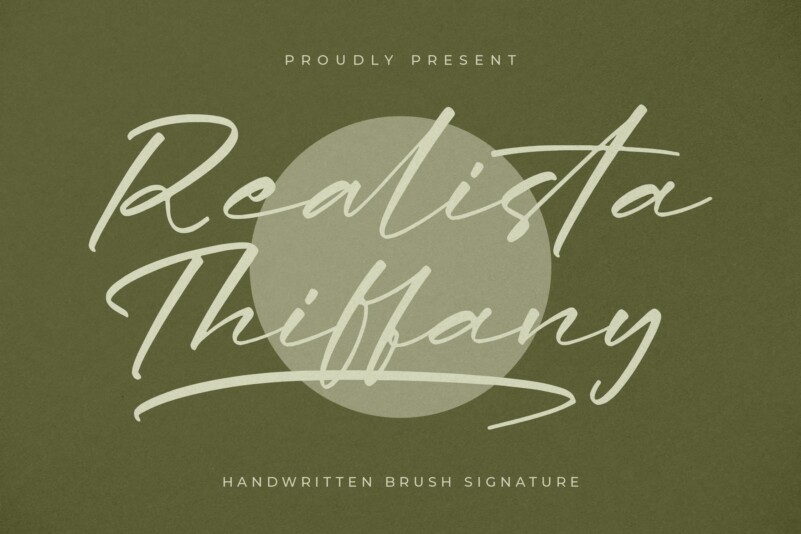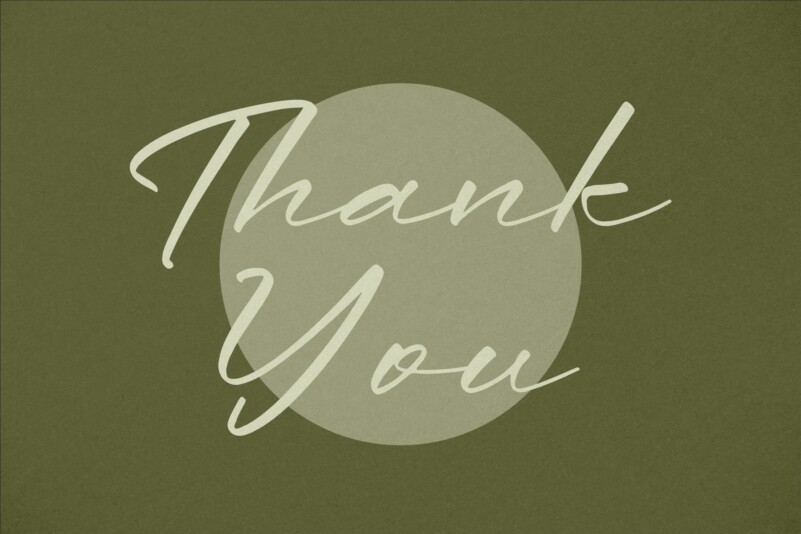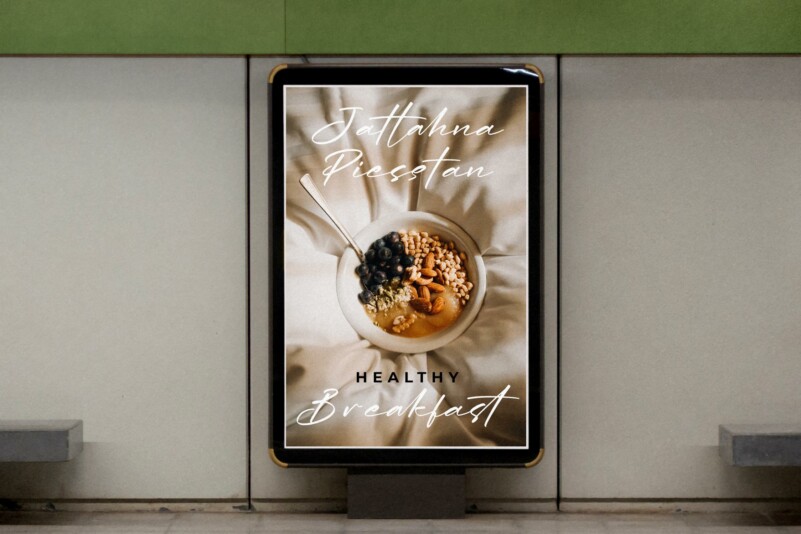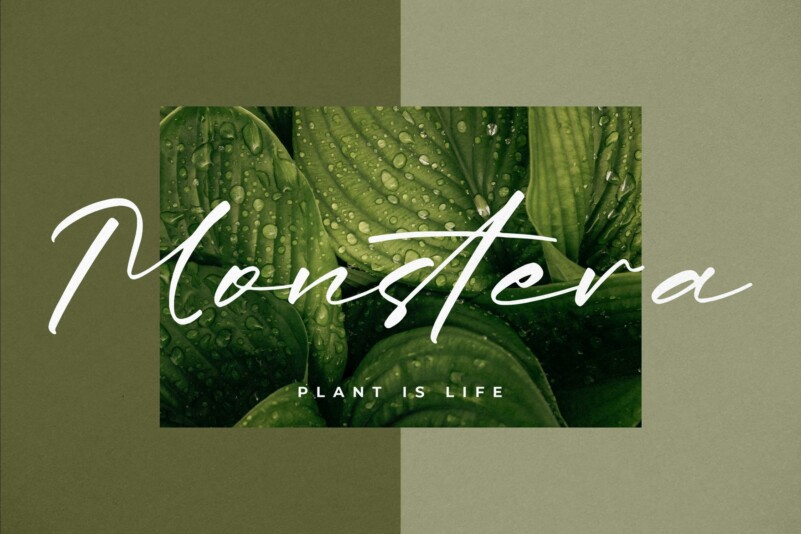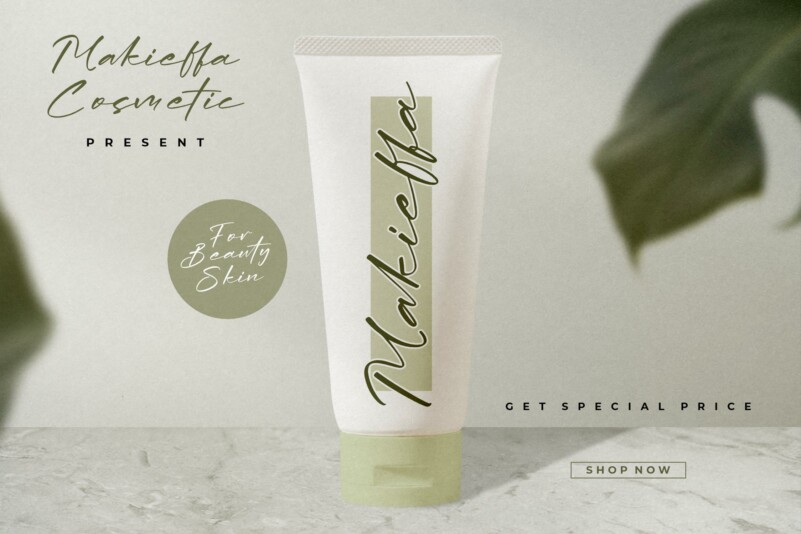
Realista Thiffany Font
Realista Thiffany Font – Handwritten Brush Signature , from Glorytype Studio, suitable for any projects such as: logos, branding projects, homeware designs, product packaging, mugs, quotes, posters, shopping bags, t-shirts, book covers, name card, invitation cards, greeting cards, label, photography, watermark, special events, and all your other lovely projects that need a beautiful script taste.